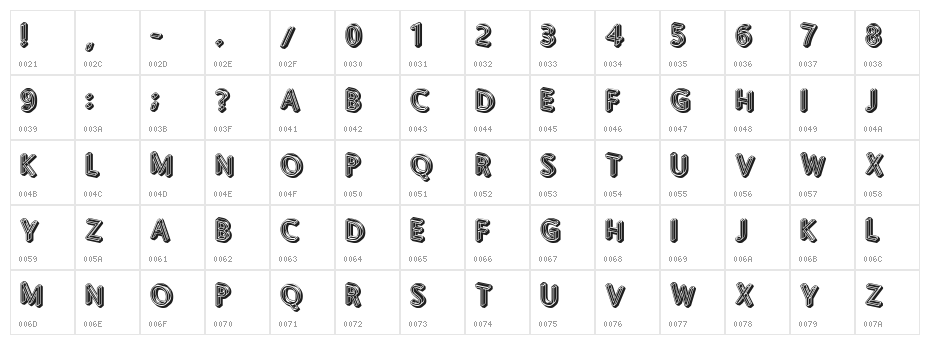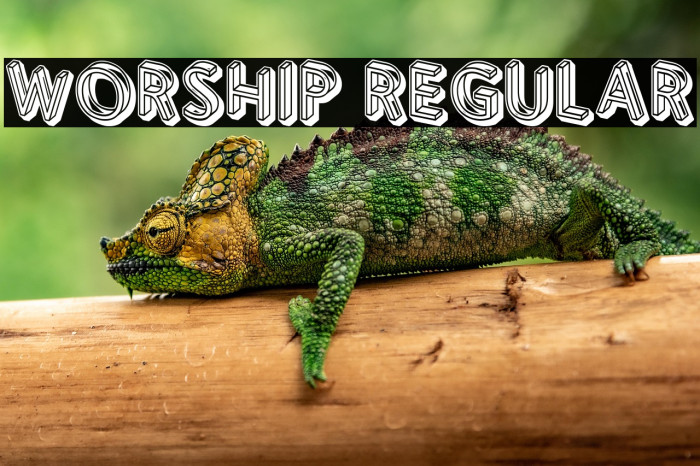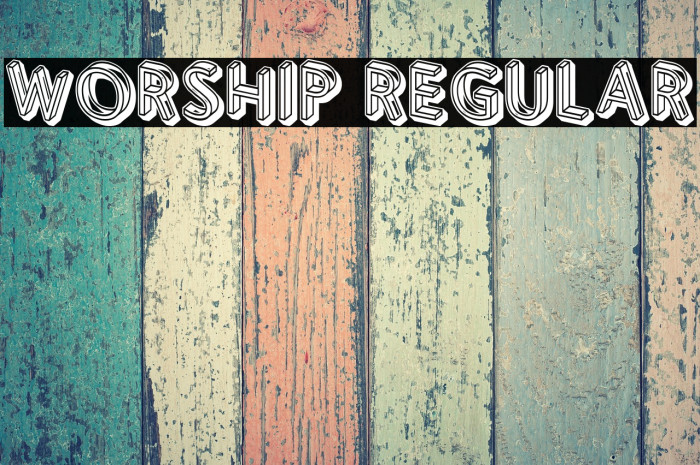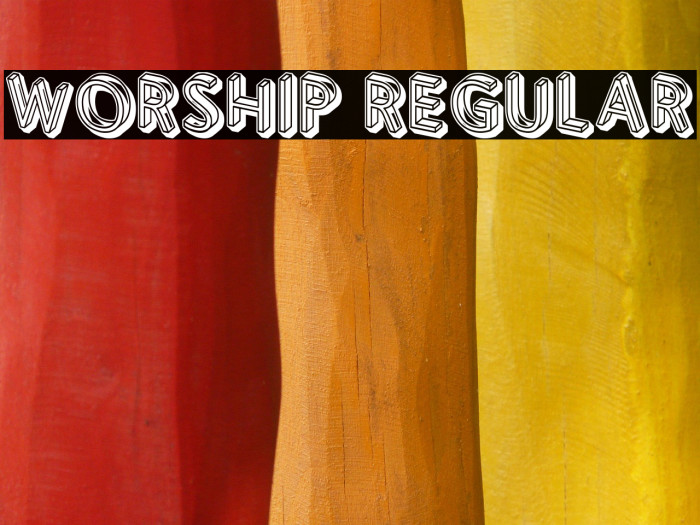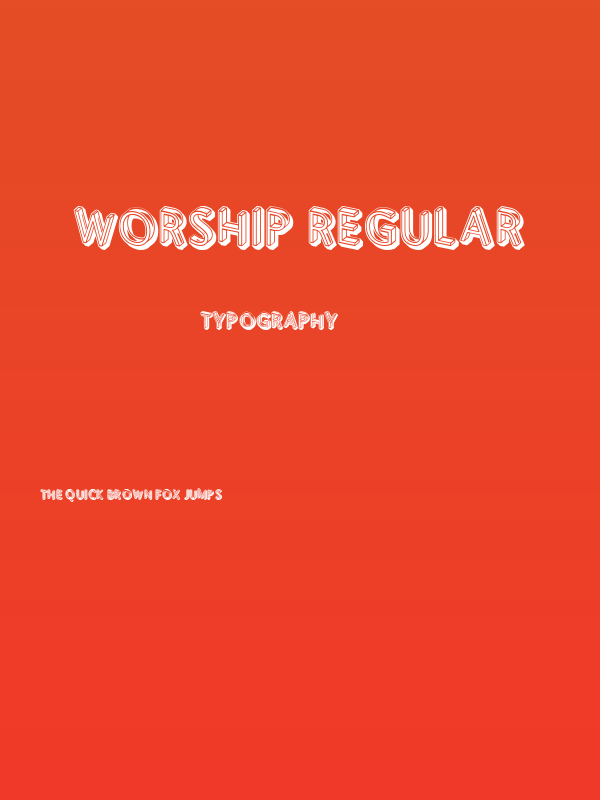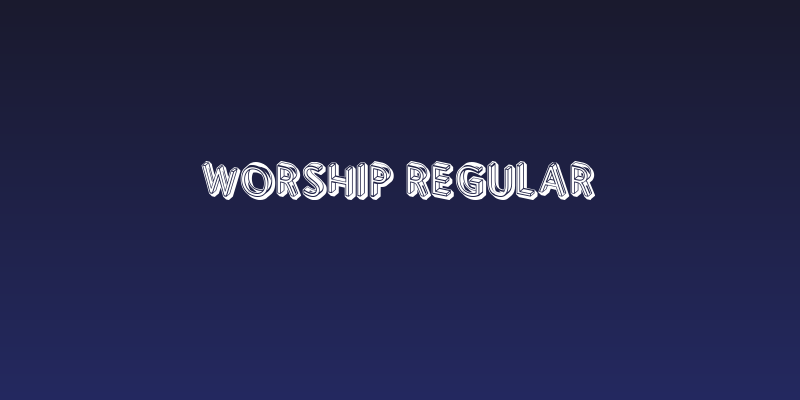
Worship Regular Font
Worship Regular Description
This font features a bold, three-dimensional design that gives each character a striking, shadowed appearance. The letters are uppercase and have a geometric, block-like structure with a consistent thickness throughout. The 3D effect is achieved through a clever use of outlines and shading, creating a sense of depth and dimension. The numbers and punctuation marks follow the same style, ensuring a cohesive look across all characters. This font is ideal for making a strong visual impact, with its bold lines and dynamic presence.